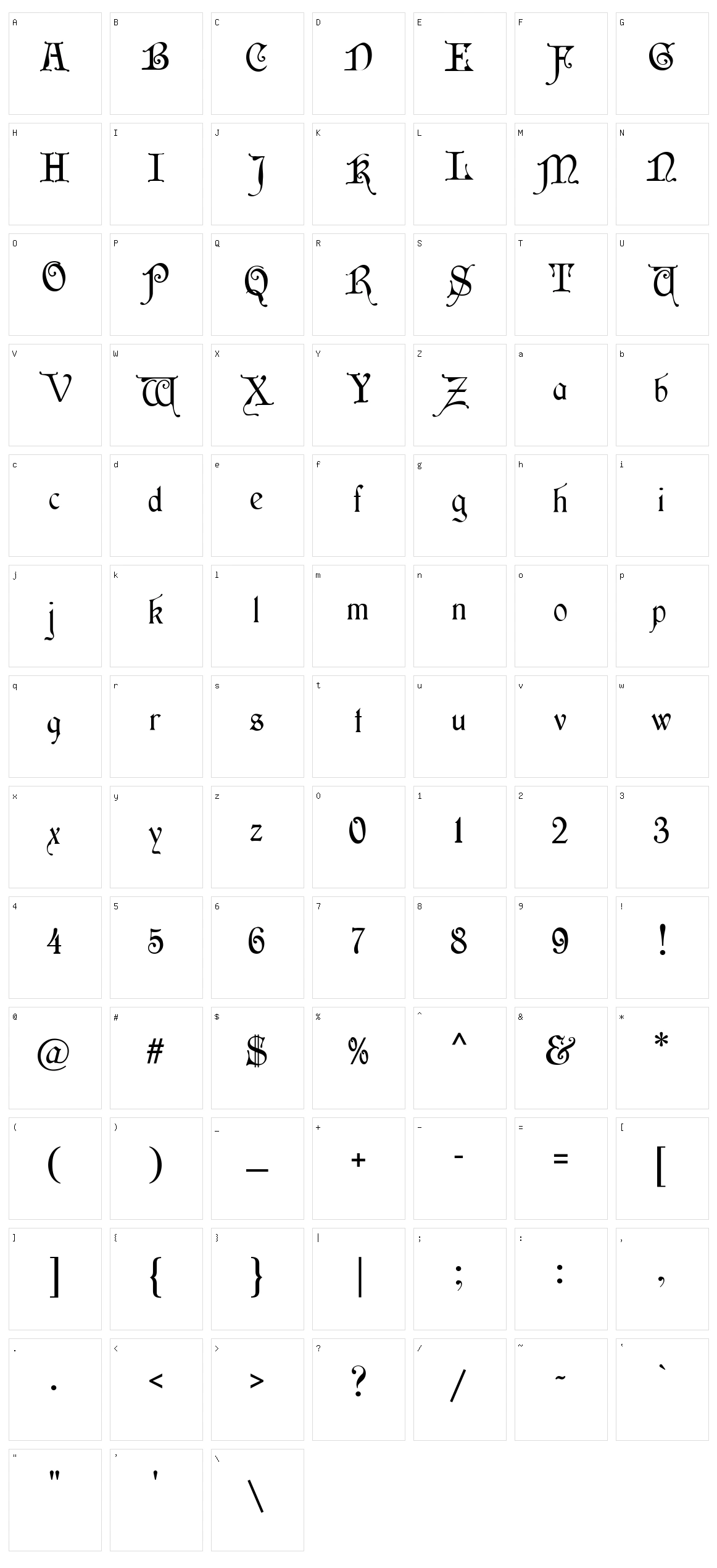
Wish MF
Typefaces by Rick W. Mueller
============================
Wish - Alternates:
ALT 0138: end-s
ALT 0154: beginning-s
ALT 0170: k swash
ALT 0178: A
ALT 179: S
ALT 0181 and ALT 0247: H
ALT 0185: P
ALT 0188: G
ALT 0189: Y
ALT 0208: g
ALT 0240: d
ALT 253: end-n swash
ALT 254: z